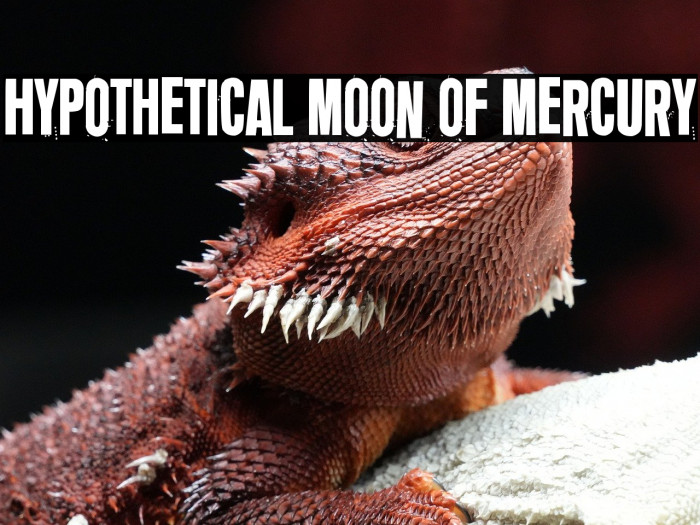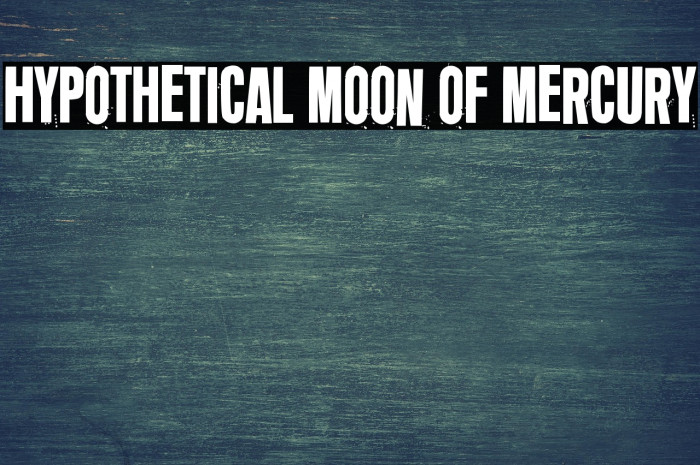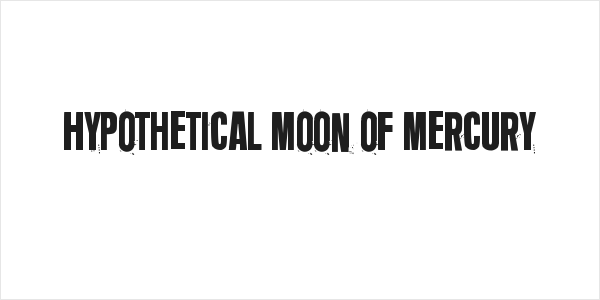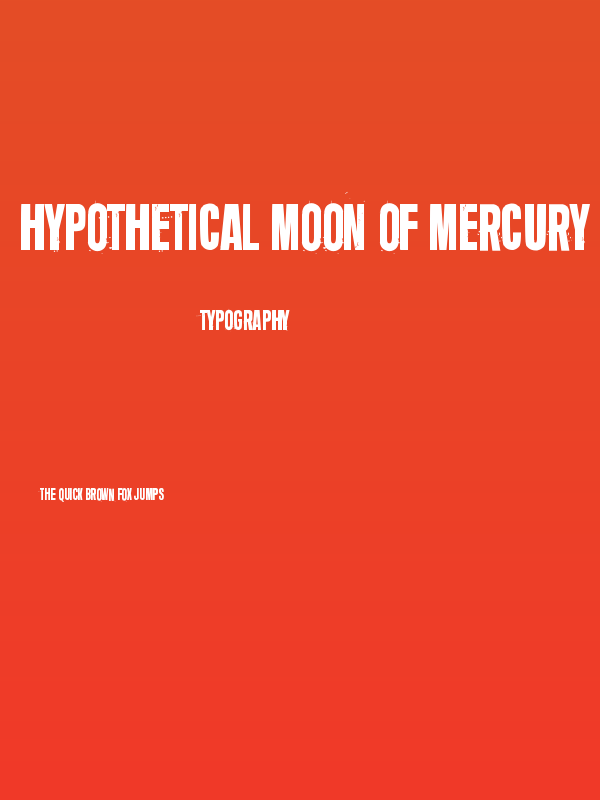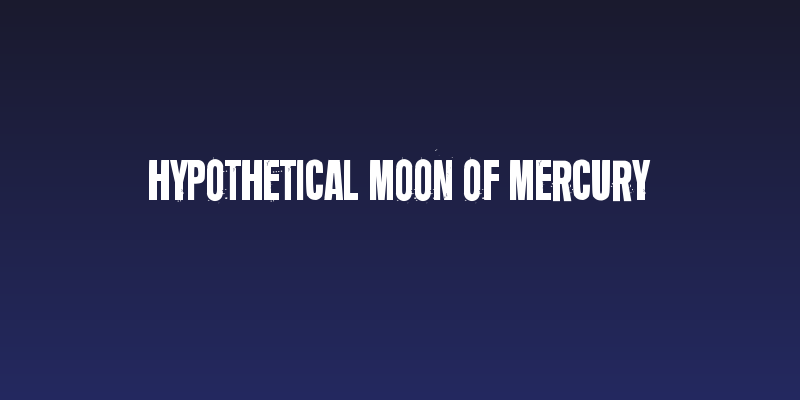
Hypothetical moon of Mercury Font
Hypothetical moon of Mercury Description
This bold, decorative font features a distressed, grunge texture that gives it a rugged and edgy appearance. The uppercase letters are prominent and impactful, making it ideal for attention-grabbing designs. The numbers and special characters maintain the same boldness and texture, ensuring consistency across all elements. The font's condensed width allows for efficient use of space, while the high contrast in stroke thickness enhances its visibility and readability. This style is perfect for projects that require a strong, urban, or industrial feel.
| Proposed Projects | Posters, album covers, branding for edgy products, urban-themed events, or any design needing a strong visual impact. |